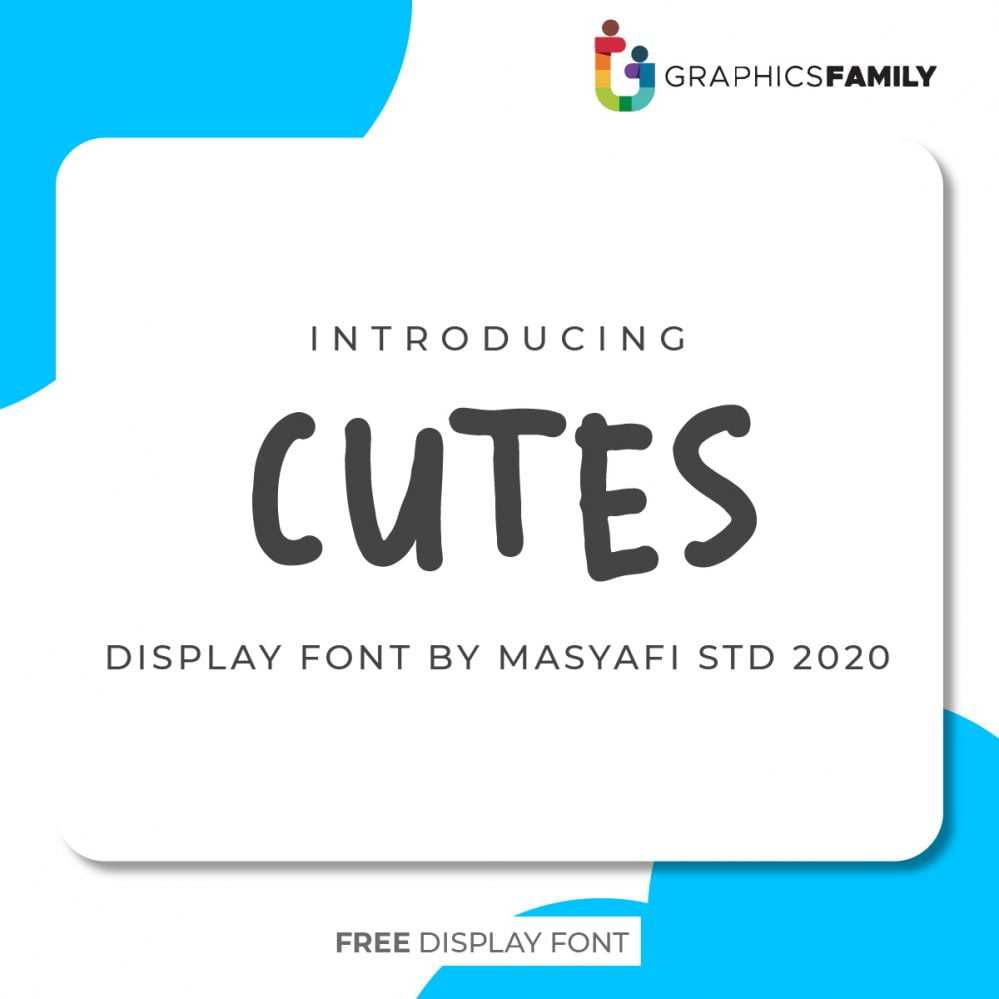
Free Cutes Font Cutes is a sweet and quirky handwritten font. It embodies uniqueness and youth. This lovely font will turn any creative idea into a standout!